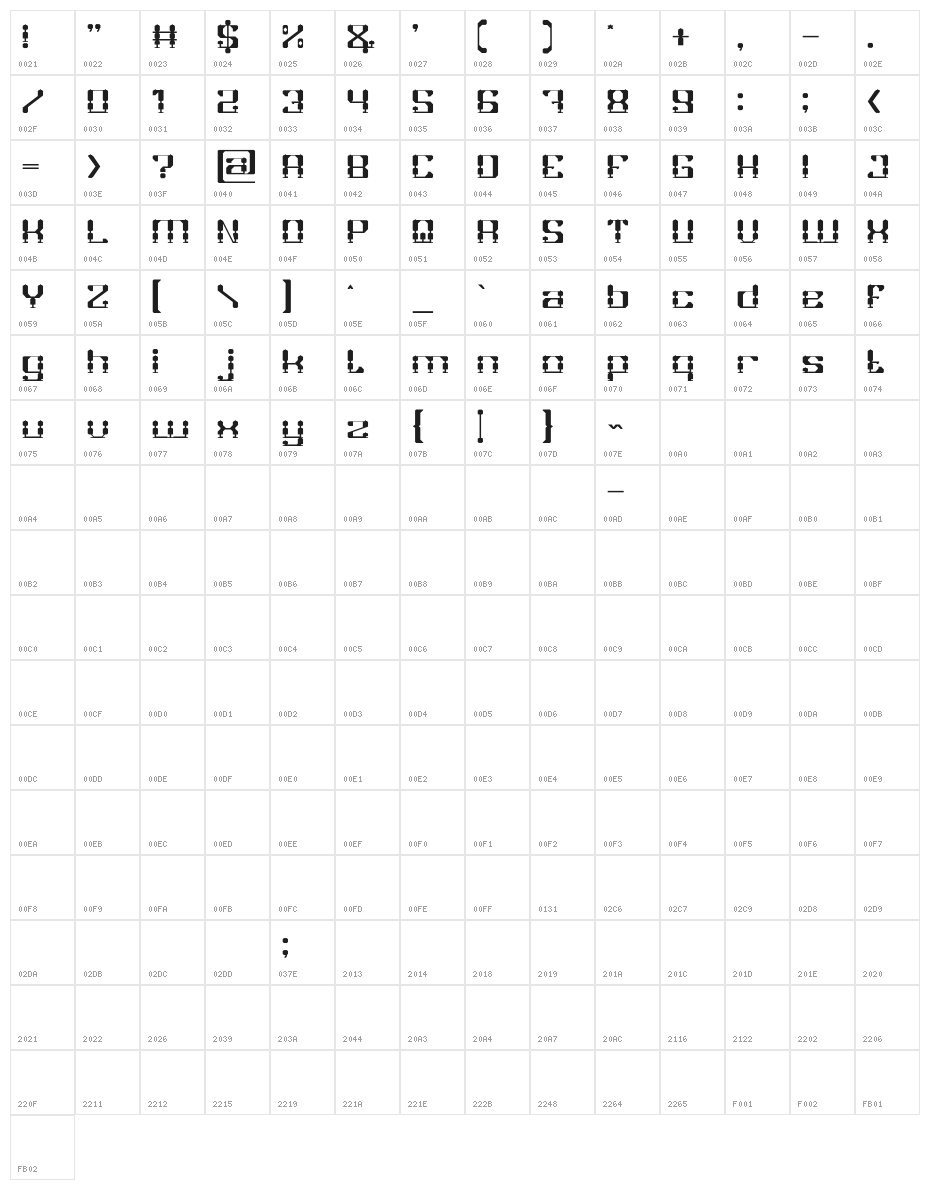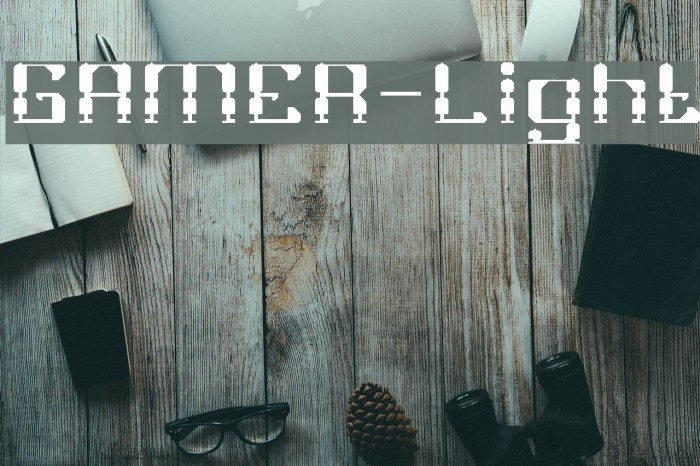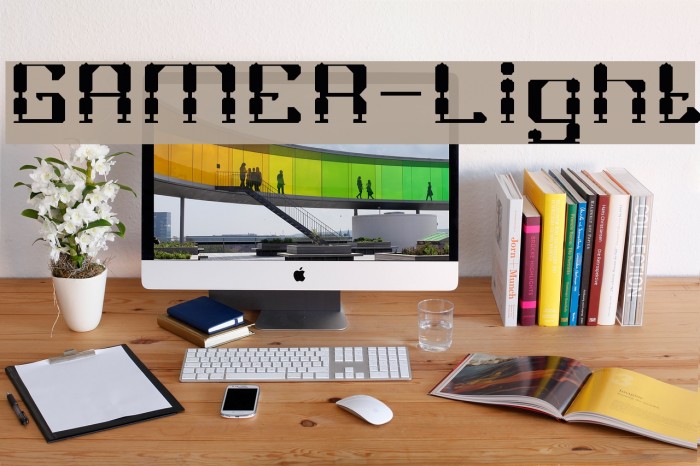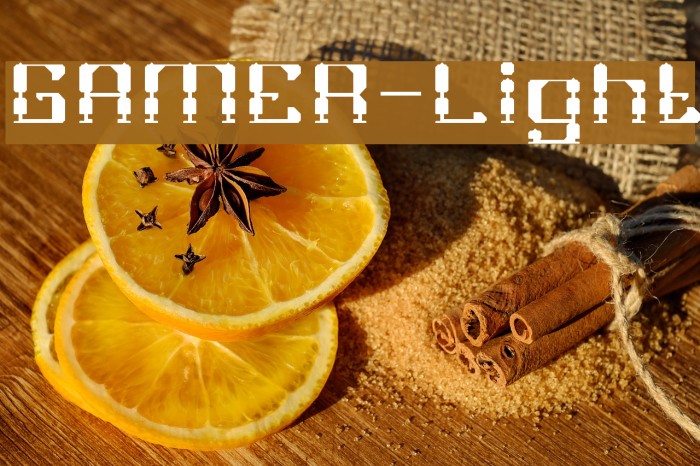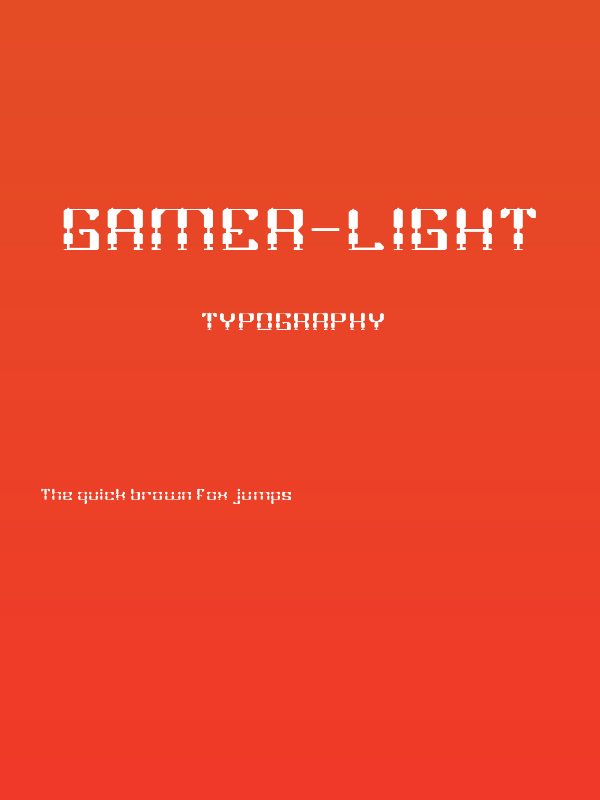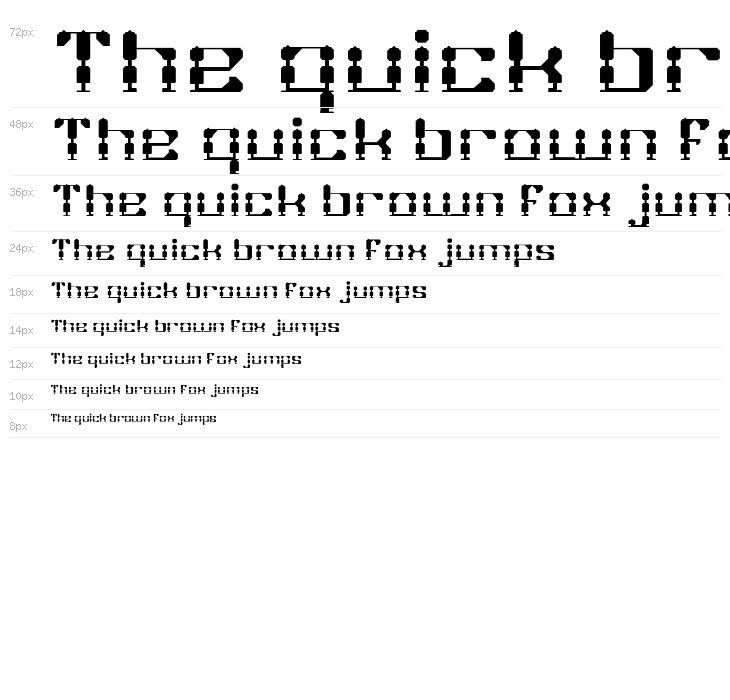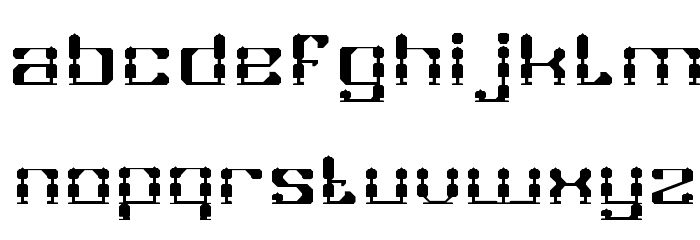
GAMER-Light Font
GAMER-Light Description
This font features a bold, geometric design with a pixelated, digital aesthetic reminiscent of classic video game graphics. The characters are constructed with a blocky, modular style, giving it a futuristic and tech-inspired look. The uppercase and lowercase letters maintain a consistent structure, with sharp angles and a uniform thickness throughout. The numerals and special characters follow the same design principles, ensuring a cohesive appearance across all glyphs. This font's unique style makes it stand out, ideal for projects that require a modern, digital feel.